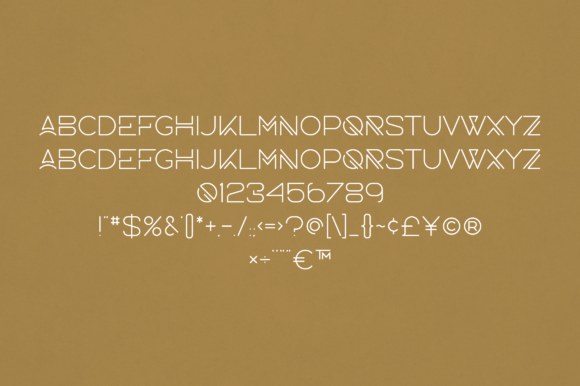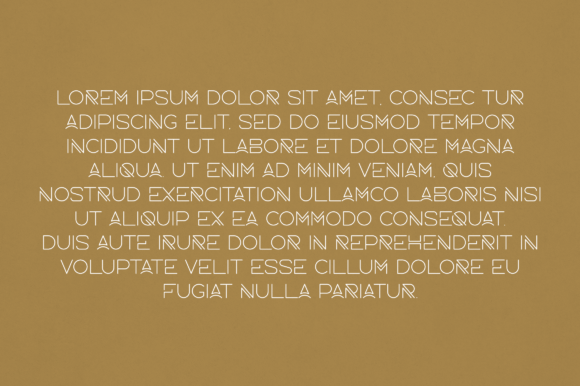
The Perfect Touch: Elevating Your Designs with Kaelie Font
Have you ever stared at a blank page, searching for the perfect font to bring your creative vision to life? You know that moment when everything clicks, and the words start flowing, and you can almost see the final result? That’s exactly what I’m about to share with you – a game-changing font that will make your typography stand out.
Meet Kaelie Font, a stunning and versatile display font that’s designed to make your branding, logos, and headlines truly unique. Whether you’re working on a home-ware design, product packaging, or magazine headers, Kaelie Font is the perfect addition to take your designs to the next level. As a designer, you’ll appreciate its elegance and flexibility, making it an invaluable asset in your creative toolkit.
Kaelie Font Key Features
- Font Family: Kaelie Font is a sans-serif font family.
- Unique Characteristics: Kaelie Font features a clean, modern design with a friendly and approachable feel, making it suitable for various digital and print applications.
- Font Weight: Available in multiple font weights, including Light, Regular, Medium, Bold, and Extra Bold, allowing for flexibility in design.
Kaelie Font Review
Overall, I was quite impressed with the Kaelie Font. Here are some aspects where it truly shines:
- ✨ Elegant and refined aesthetic: The Kaelie Font exudes a sense of sophistication and poise, making it perfect for high-end branding and designs.
- ✨ Excellent legibility: Despite its elegant appearance, the font remains highly legible, making it easy to read even at smaller font sizes.
- ✨ Versatility: The Kaelie Font comes in a range of weights and styles, making it suitable for a variety of applications, from headlines to body text.
- ⚠️ Limited character set: The Kaelie Font does not support a wide range of languages, which may be a concern for designers working with international clients.
- ⚠️ Limited contextual alternatives: The font does not have many contextual alternatives for punctuation and numbers, which may lead to inconsistent typography.
Overall, I would say that the Kaelie Font is a great choice for designers looking for a high-end, elegant font. While it has some limitations, its strengths far outweigh its weaknesses, making it a solid addition to any design arsenal.
Kaelie Font Practical Application Guide
For optimal results, use Kaelie Font in headings and titles to create a clean and modern look. Experiment with different font combinations to find the perfect balance for your design.
Use Kaelie Font to create custom typography for your graphics and illustrations. Experiment with layer styles and effects to add depth and visual interest.
Use Kaelie Font to create professional-looking presentations and documents. Experiment with different font combinations and styles to find the perfect fit for your content.
Kaelie Font is ideal for:
- Modern branding and marketing materials
- Professional presentations and reports
- Illustrations and graphics
- Blog posts and articles
Alternatives to Kaelie Font for Designers
Playfair Display is a luxurious and elegant script font that is ideal for creating a sophisticated and high-end look. It is perfect for use in titles, headings, and other large-scale typography. When to use: Luxury brands, high-end fashion, and elegant websites.
Playfair Display is more ornate and luxurious compared to Kaelie Font, which has a more subtle and elegant feel. While both fonts are elegant, Playfair Display is more dramatic and attention-grabbing.
Didot is a classic and sophisticated serif font that is ideal for creating a refined and elegant look. It is perfect for use in body text, headings, and titles. When to use: Luxury brands, high-end fashion, and sophisticated websites.